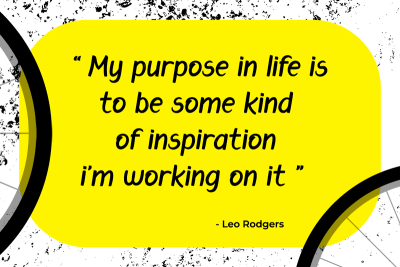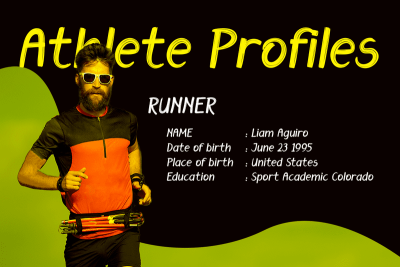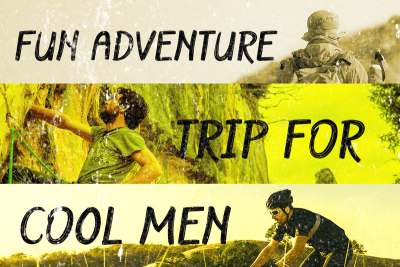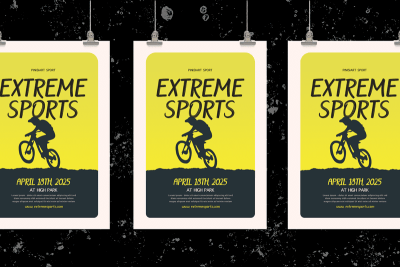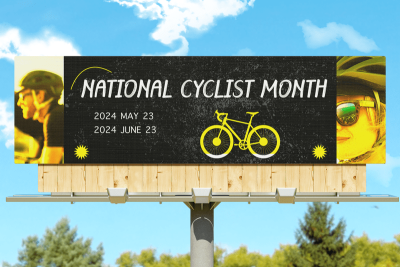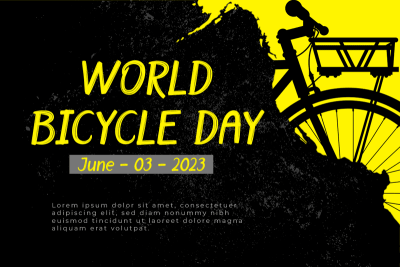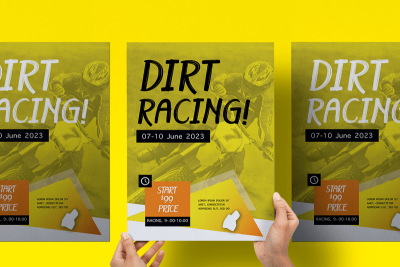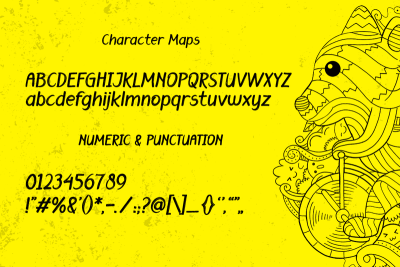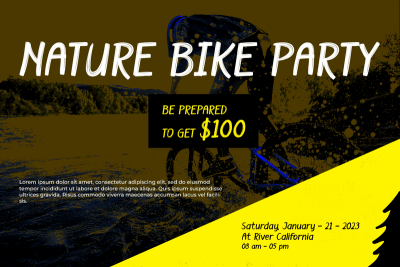
Graffiti font Dryer Brush brings a bold, dynamic vibe that captures the free-spirited energy of street art. Created by Pinisiart, this bicycle display font features a unique brush stroke effect that adds texture and depth. Its bold, irregular letterforms evoke the spontaneous feel of graffiti, with rugged edges enhancing its expressive quality. Therefore, this combination of rawness and readability makes Dryer Brush perfect for designs that need to leave a memorable impact.
Moreover, Dryer Brush adapts well to various projects beyond urban themes. Itโs an excellent choice for posters, banners, and logos that demand a bold look. The hand-drawn style offers a personal touch, blending warmth with an edgy tone. Additionally, its high readability ensures it shines in both large and small sizes, maintaining its impact across formats. This fontโs unique, playful style suits both minimalist layouts and high-energy designs.
Graffiti font Dryer Brush Best Suited For
Designers, illustrators, and creators seeking boldness and personality in their work will love Dryer Brush. This font is also an excellent tool for social media influencers, YouTubers, and content creators aiming to produce visuals that grab attention on digital platforms. Specifically, itโs ideal for brands in lifestyle, adventure, and streetwear, where a youthful look is key. Outdoor brands, bike shops, and sportswear companies can use this font to convey a daring, adventurous spirit that resonates with their target audience.
Furthermore, social media influencers, YouTubers, and content creators benefit from Dryer Brushโs ability to grab attention. Its expressive style, for instance, helps content stand out in busy feeds. In advertising, Dryer Brush adds authenticity and relatability, which helps outdoor and lifestyle brands connect with audiences who value real, down-to-earth experiences. Additionally, merchandise designers, especially those creating T-shirts, hats, and posters, will find its streetwise aesthetic appealing to fans of graffiti. Finally, event planners can use Dryer Brush for branding music festivals, art shows, and sports events that need an energetic, rebellious feel.